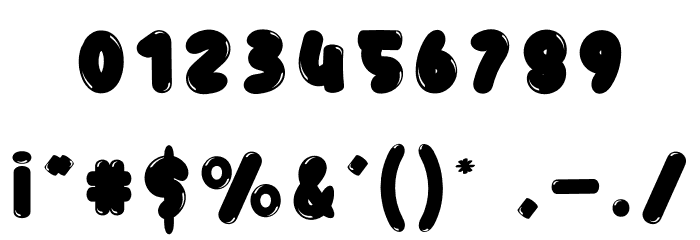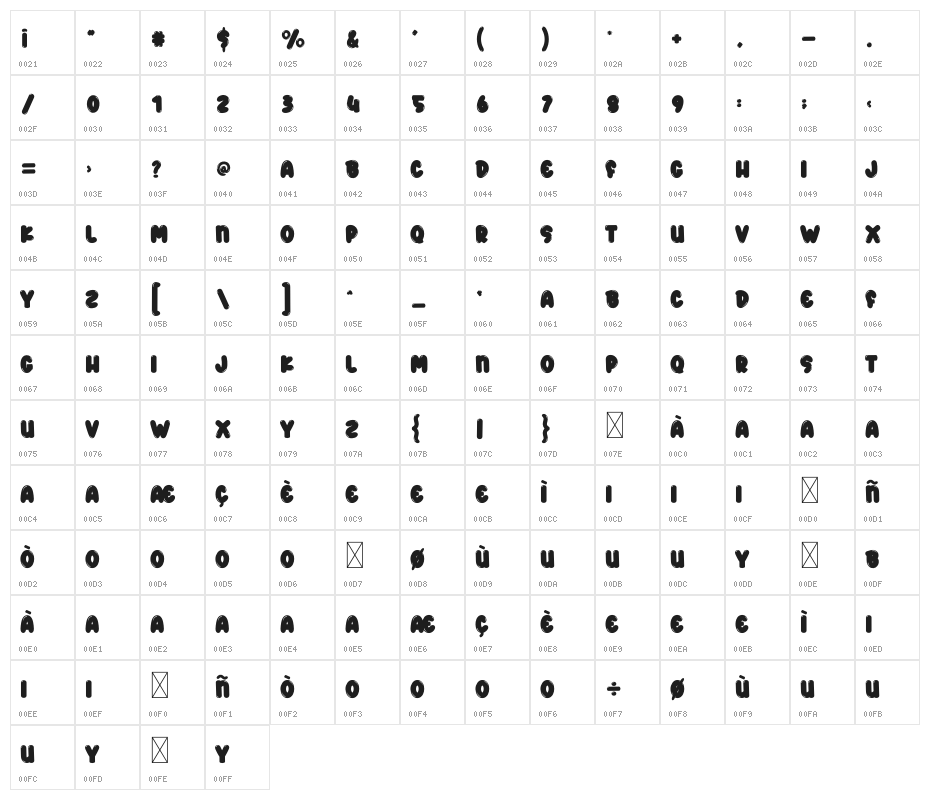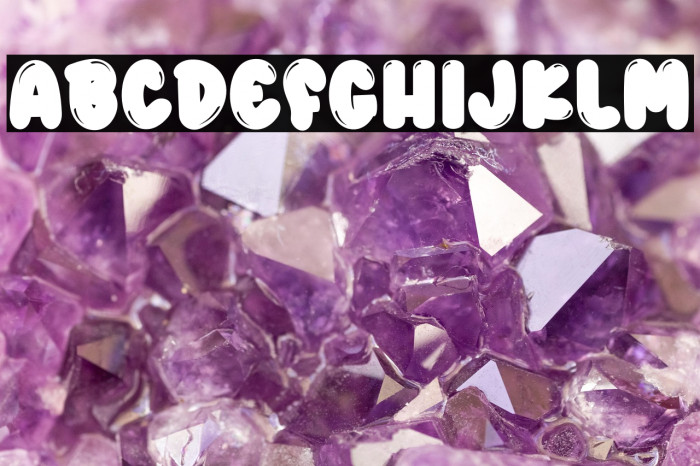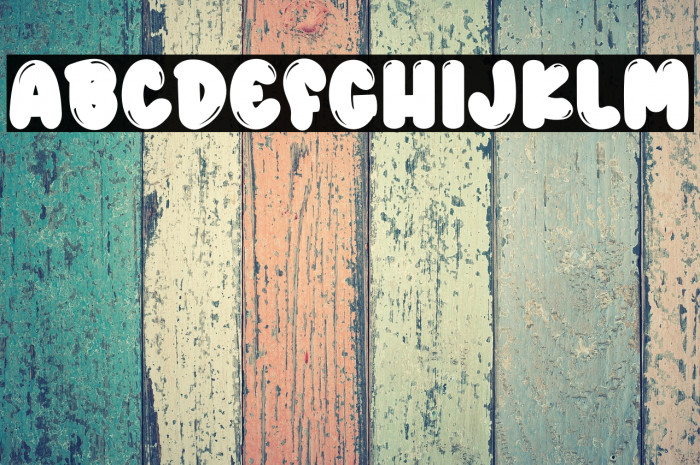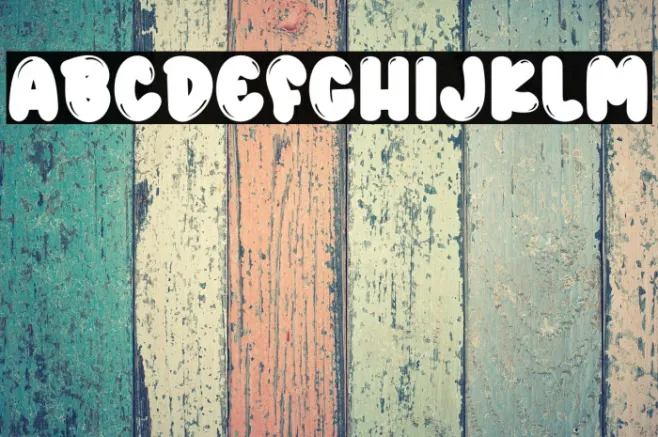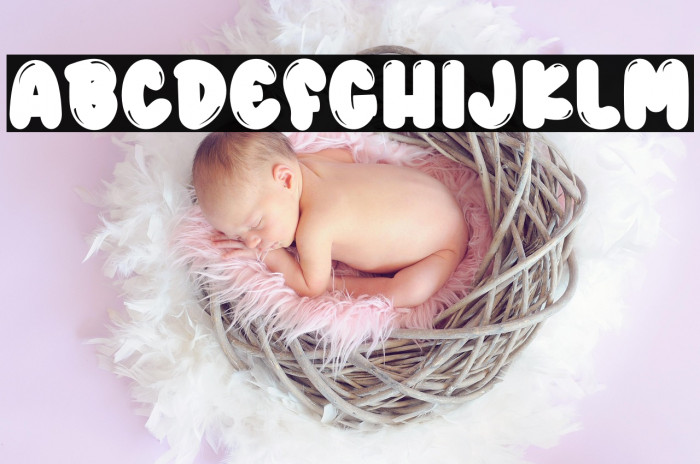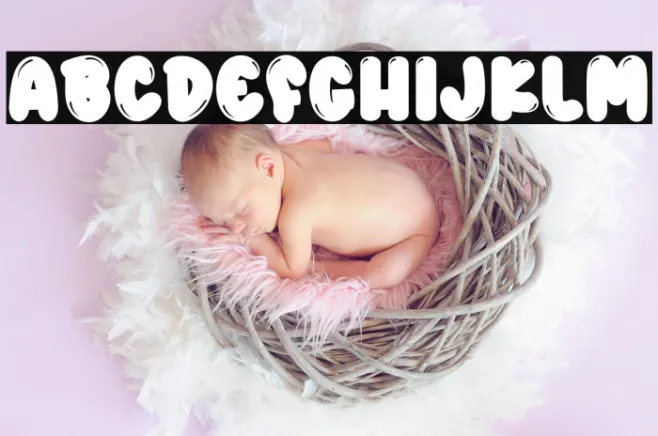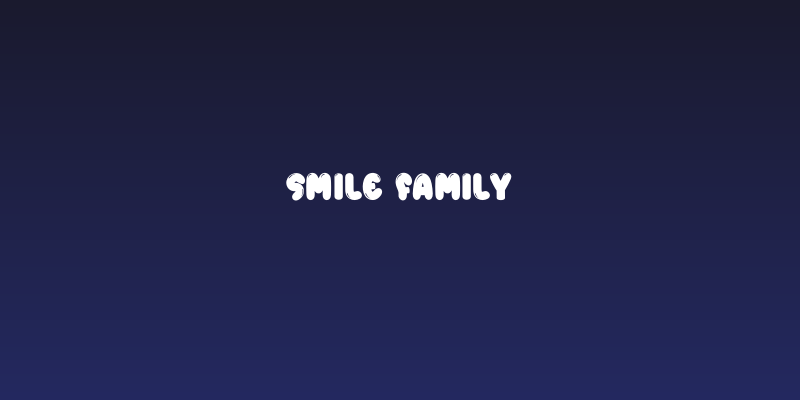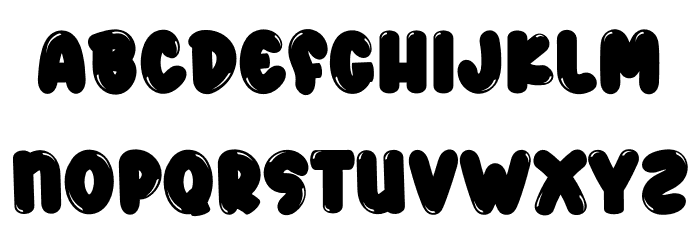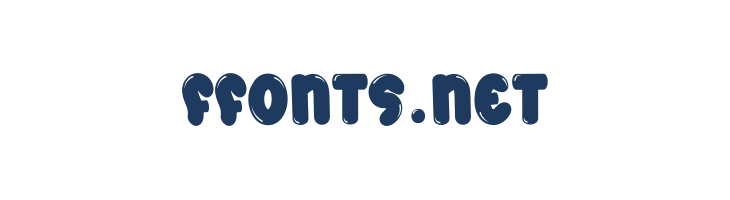
Smile Family Font
Smile Family Description
This playful and bold typeface features rounded, bubbly characters that exude a sense of fun and whimsy. The letters are thick and substantial, with a smooth, glossy appearance that makes them stand out. The font maintains a consistent weight throughout, giving it a cohesive look. Its rounded edges and uniform stroke width contribute to a friendly and approachable aesthetic. The characters are well-spaced, ensuring readability while maintaining a compact form. This typeface is ideal for projects that require a lively and energetic feel, such as children's books, party invitations, or playful branding.
| Overall Style | Playful, Fun, Energetic |
| Proposed Projects | Ideal for children's books, party invitations, playful branding, and any project needing a fun, energetic feel. |